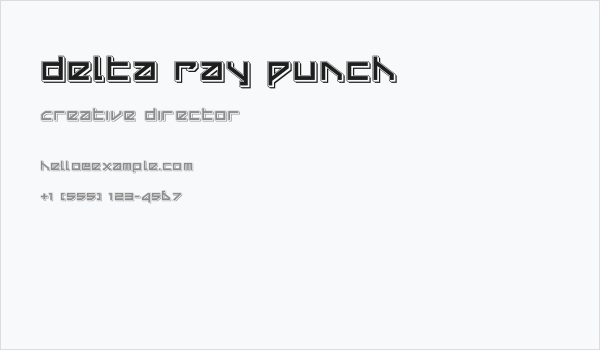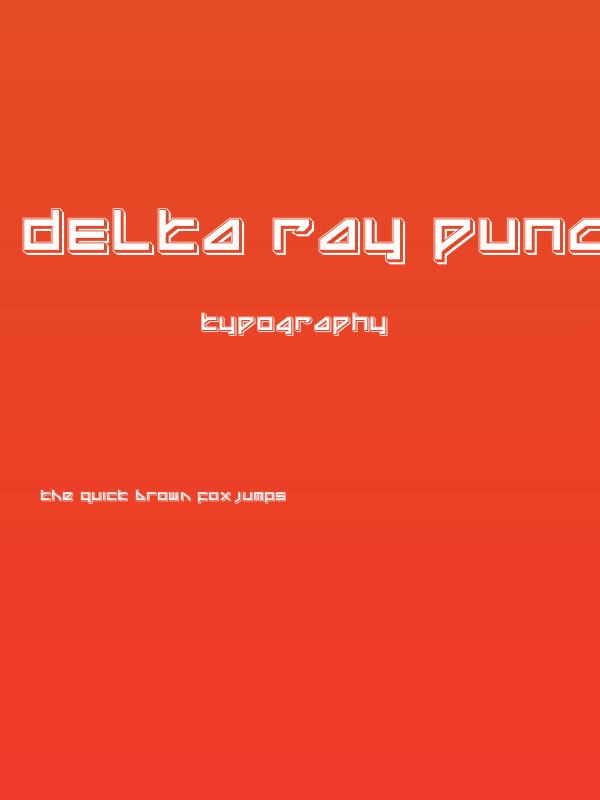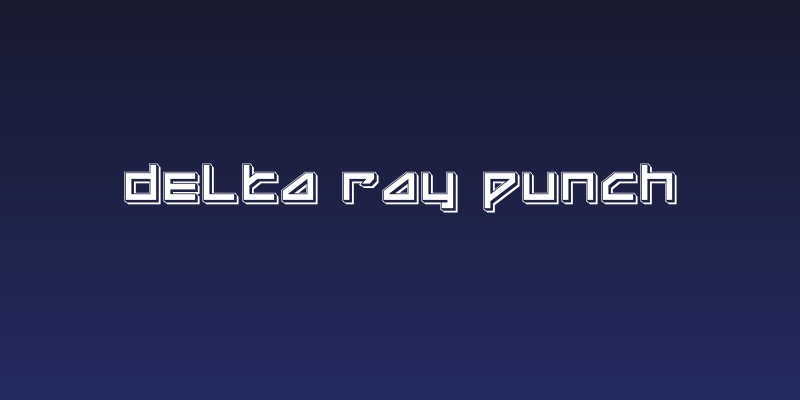
Delta Ray Punch Font
Delta Ray Punch Description
This font features a bold, futuristic design with a distinct geometric structure. Each character is outlined with a thick border, creating a three-dimensional effect. The letters are angular with sharp edges, giving a sense of movement and energy. The uppercase and lowercase letters maintain a consistent style, while the numbers and special characters complement the overall aesthetic. This font's unique style makes it stand out, ideal for projects that require a modern and dynamic look.
| Proposed Projects | Ideal for sci-fi themed designs, video game titles, posters, and branding that requires a modern and energetic look. |